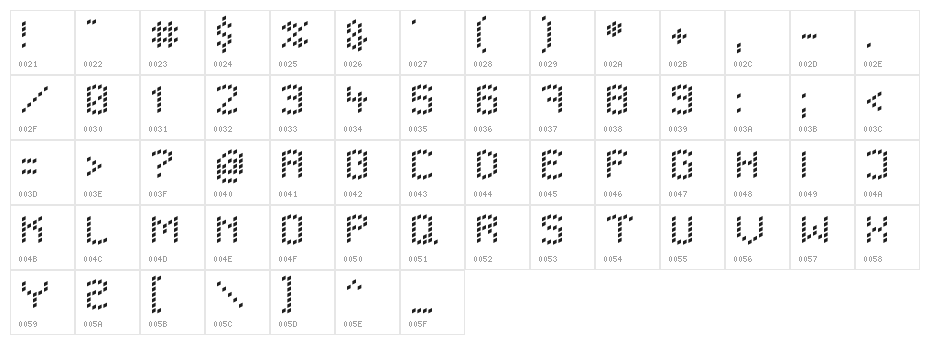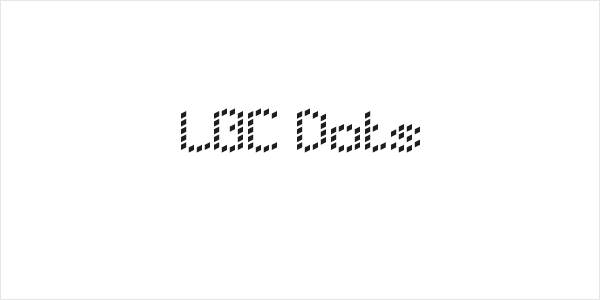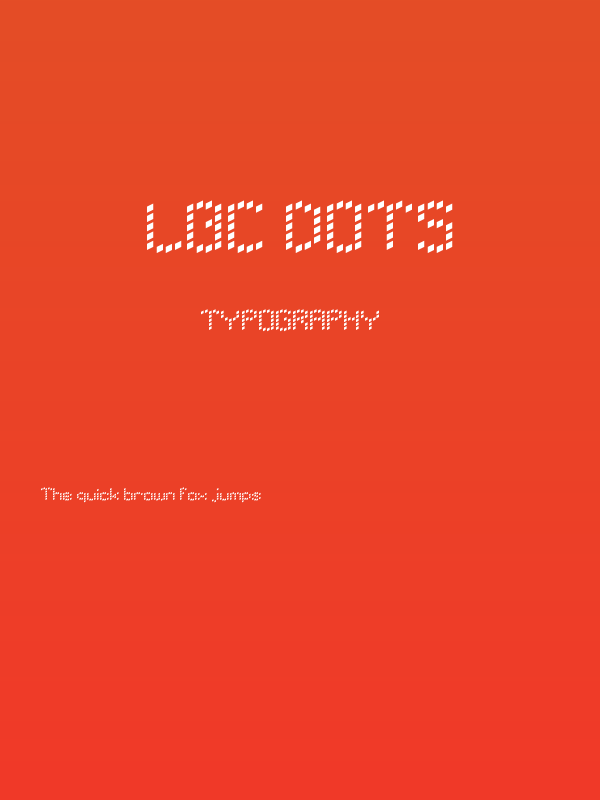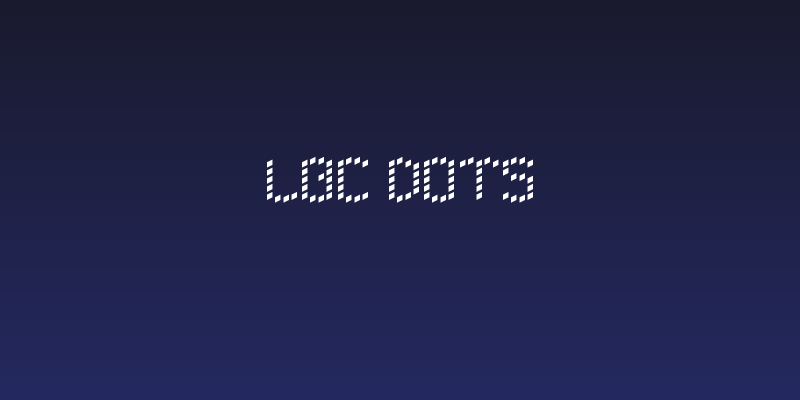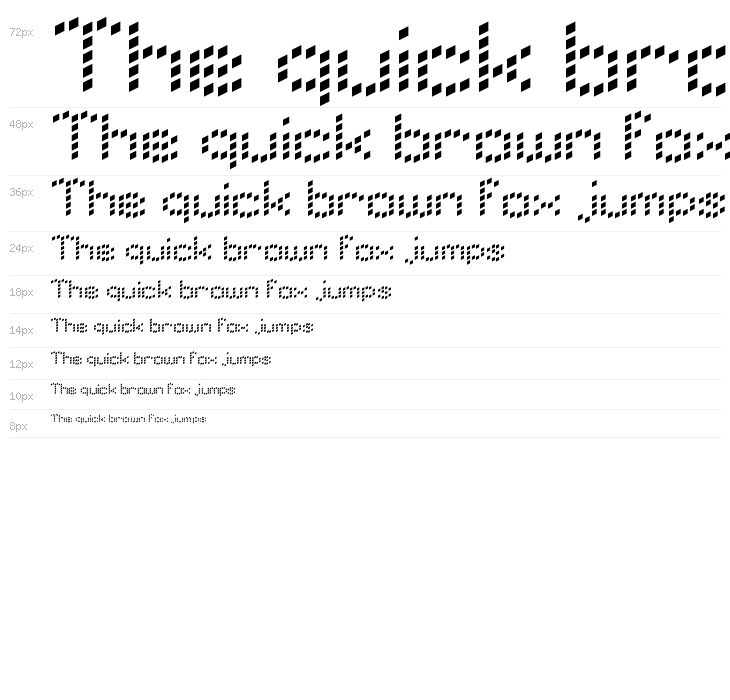
LBC Dots Font
LBC Dots Description
This font features a unique dot matrix style, where each character is constructed from a series of small, evenly spaced dots. The design is reminiscent of digital displays or retro computer screens, giving it a distinct, tech-inspired aesthetic. The uppercase and lowercase letters maintain a consistent height, with a geometric precision that adds to its modern appeal. Numbers and special characters are also crafted with the same dot pattern, ensuring uniformity across all glyphs. This font's playful yet structured design makes it stand out, ideal for projects that require a digital or futuristic touch.
| Use Case | Headlines, Logos, Digital displays |
| Proposed Projects | Ideal for digital displays, tech-themed posters, retro designs, and creative branding projects. |